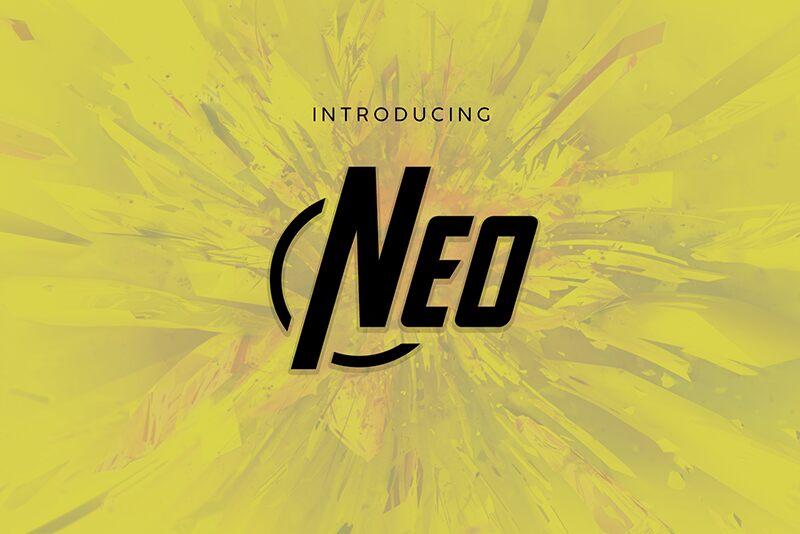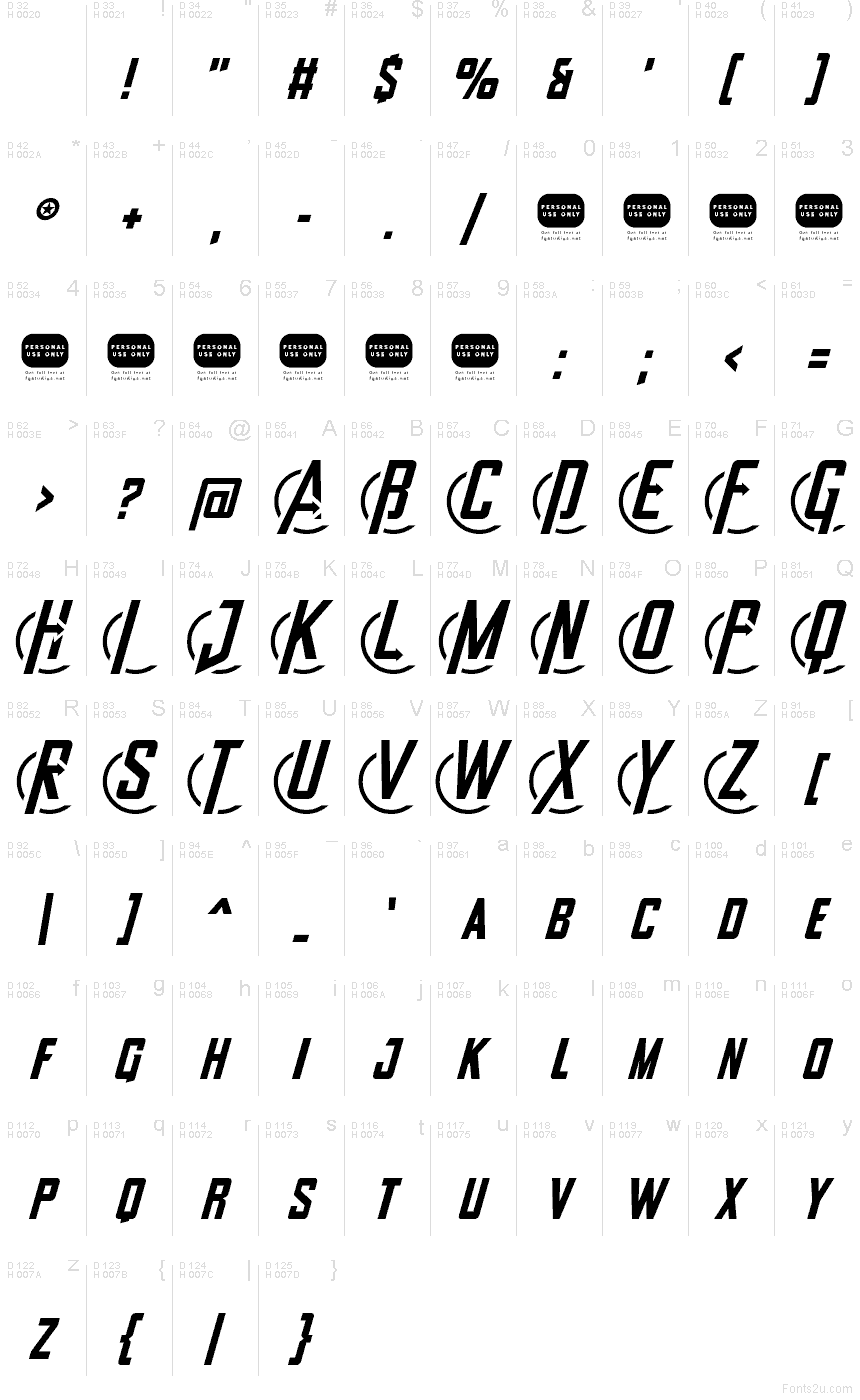
Neo, by Fgstudios, is a free techno display font with fast, slanted caps and a sharp futuristic attitude. The letters feel cut for motion - tall, angled forms are paired with cropped curves and orbit-like arcs, giving the font a sleek sci-fi signal rather than a generic geometric look.
It fits branding for gaming and tech projects, poster headlines, music cover lines, title cards, and short interface graphics where a free font needs speed and a synthetic edge. Because the caps are so directional and compact in detail, Neo also works well for logos, monograms, and brief callouts that benefit from that charged, forward-leaning rhythm.